Looking for the Pretty Woman font for your next project? You’re in luck! People search for the font used in the movie poster is often called Pretty Woman font. Today in this content we will know about the font.
So, What is Pretty Woman Font?
As shown on the movie poster title we found that the Compacta Regular bears a striking resemblance to it. Compacta is a , a typeface masterfully crafted by Fred Lambert.
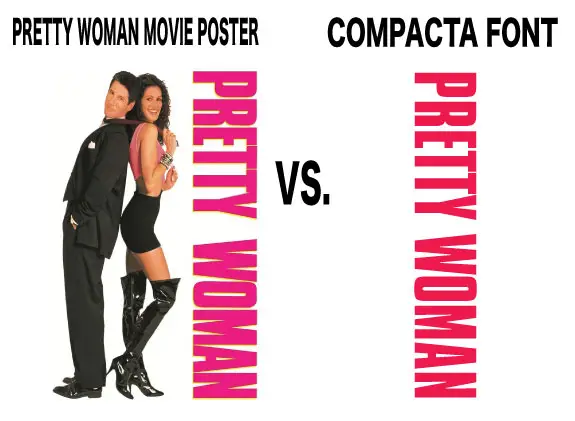
However, the typographic realm offers other contenders that closely mirror the Pretty Woman movie poster font:
Press Gothic – This typeface is almost a spitting image of the original. Check out this comparison image to see the uncanny resemblance.
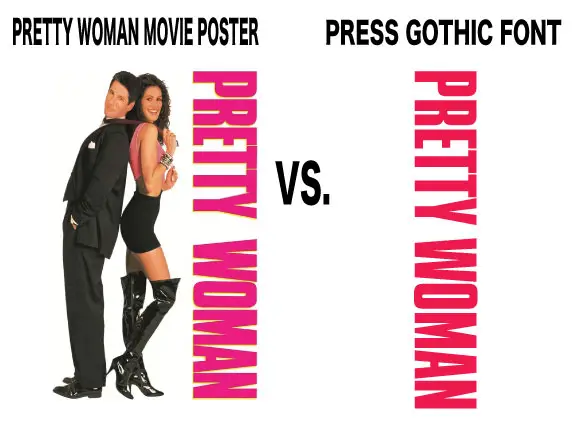
British Inserat MN – While it shares many similarities, there’s a subtle size difference that sets it apart. Yet, it remains a top choice for many designers.
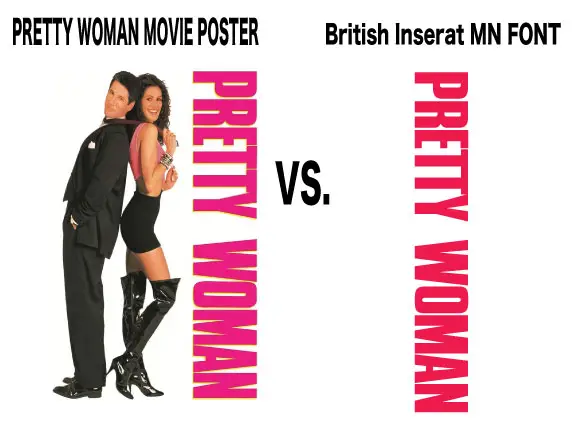
The Film and Its Legacy
Pretty Woman is a romantic comedy film from 1990, directed by Garry Marshall and starring Richard Gere and Julia Roberts. The film narrates the enchanting tale of a wealthy businessman who falls head over heels for a vivacious prostitute he hires to accompany him to high-profile social events.
Whether you’re a designer looking to capture the essence of Pretty Woman or a film enthusiast wanting to delve deeper into its visual elements, understanding the fonts behind the magic is a journey worth embarking on. The Pretty Woman font is a stylish and versatile font that can be used for a variety of purposes. It is a good choice for headlines, logos, and other applications where you need a font that is both stylish and readable.